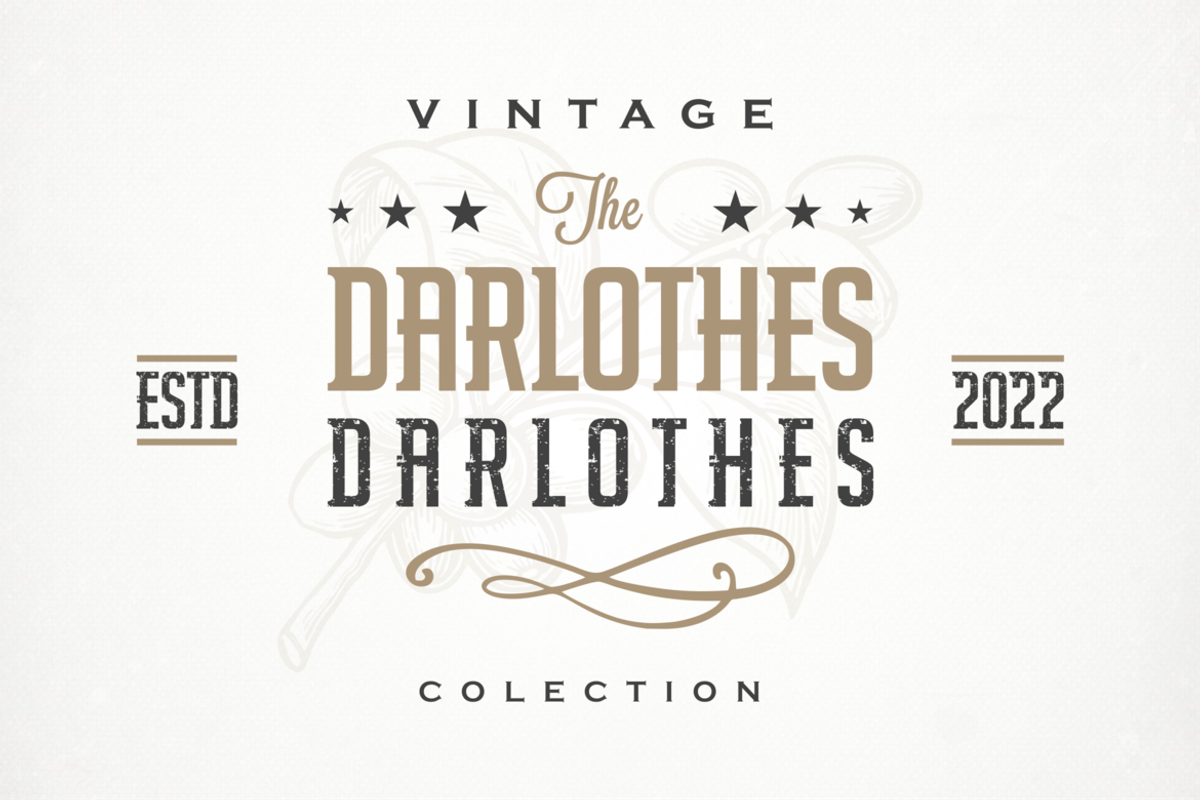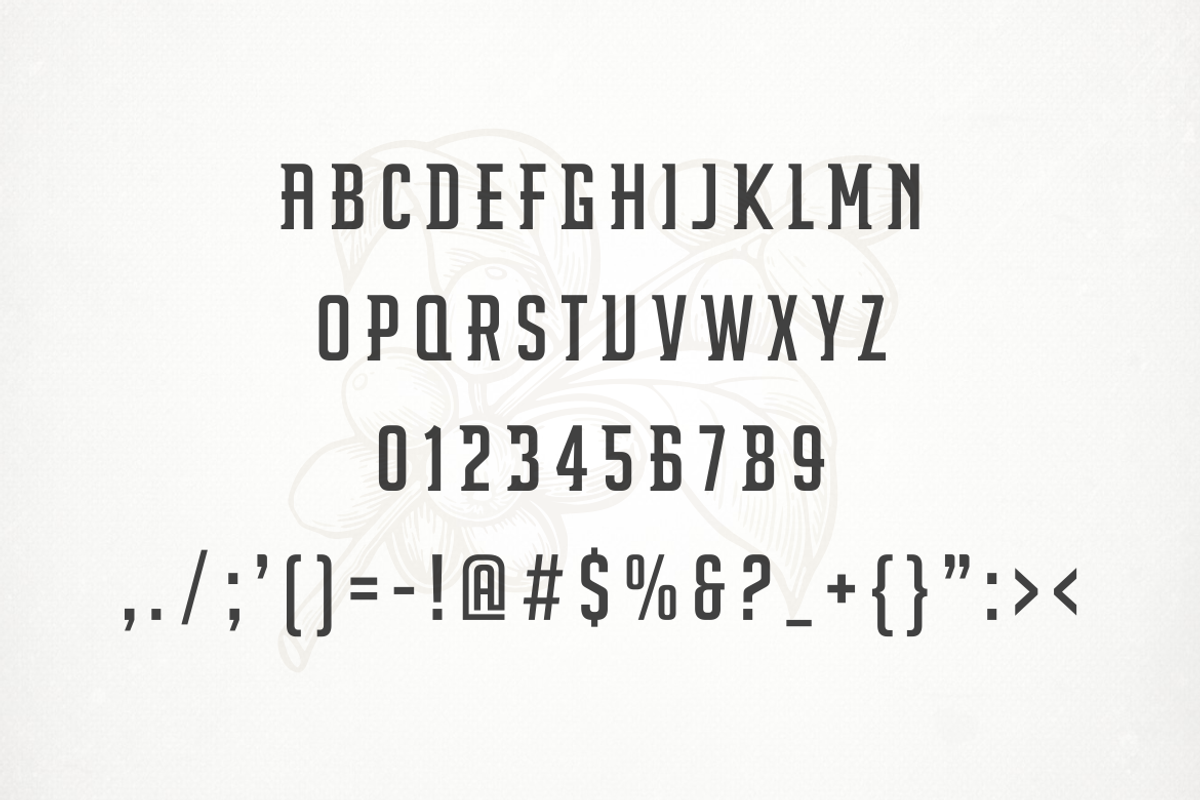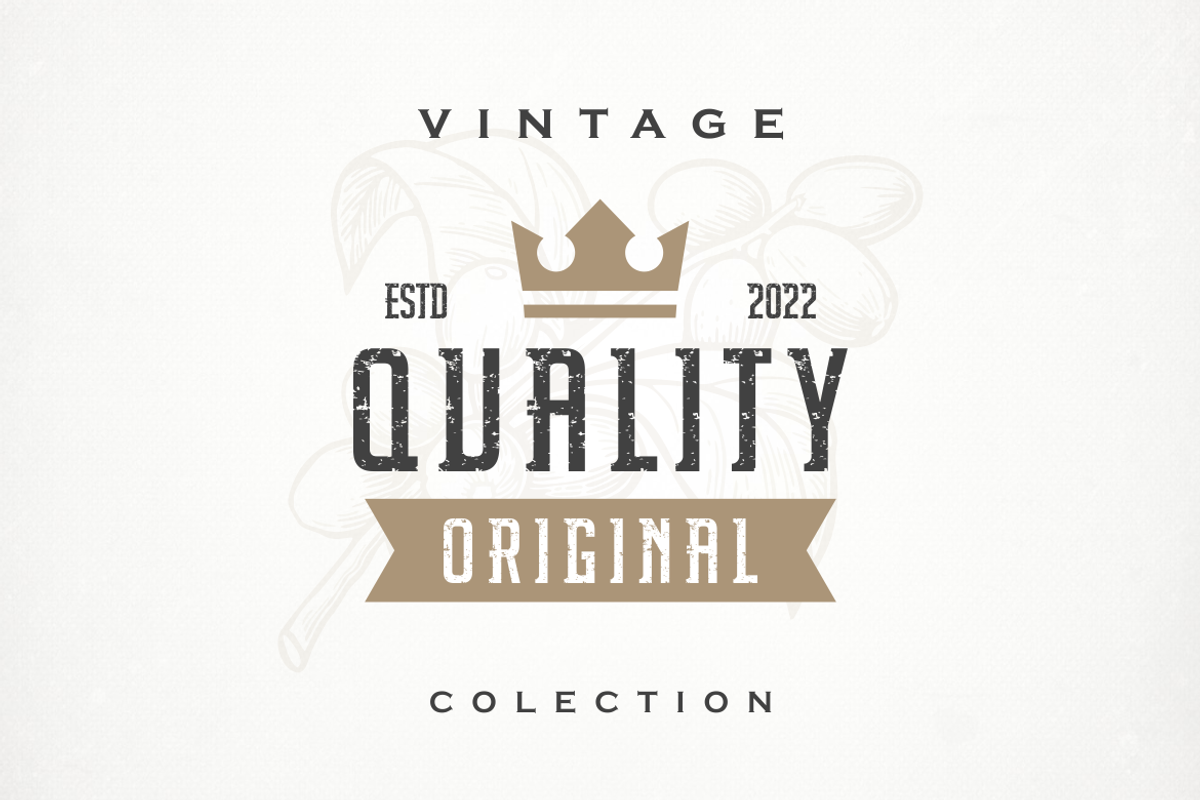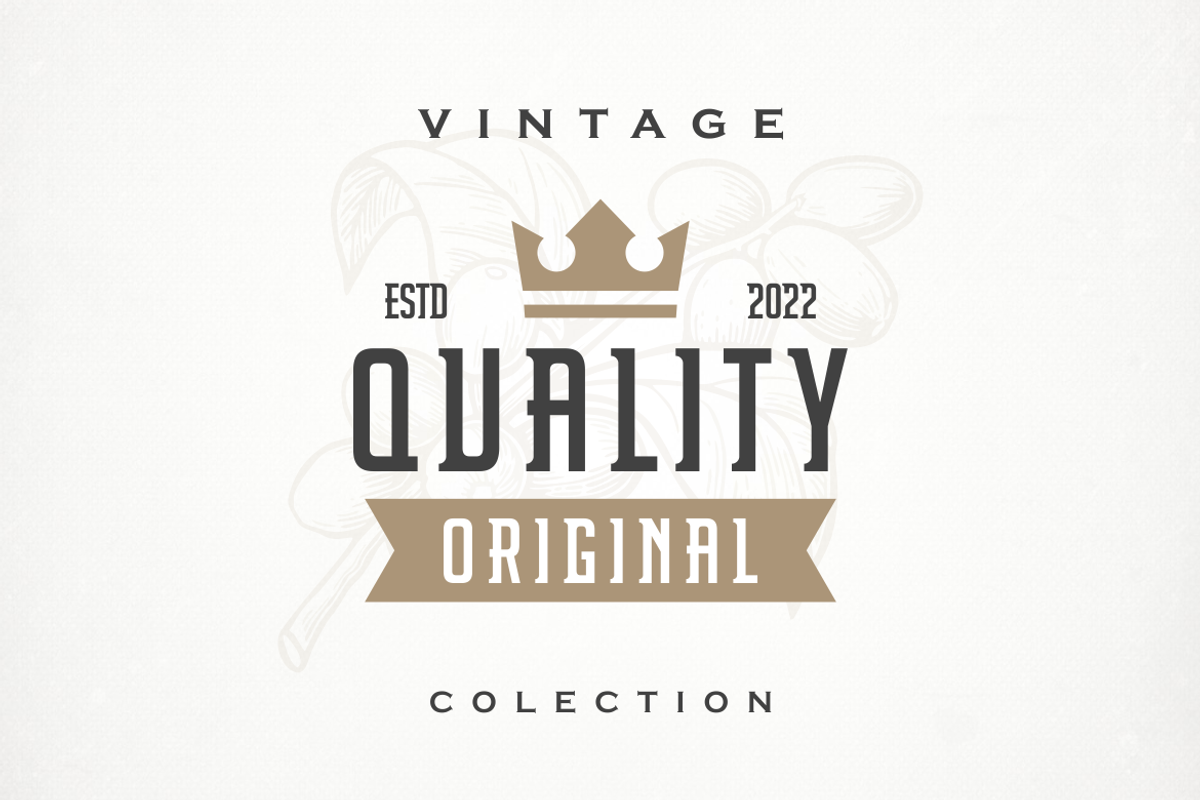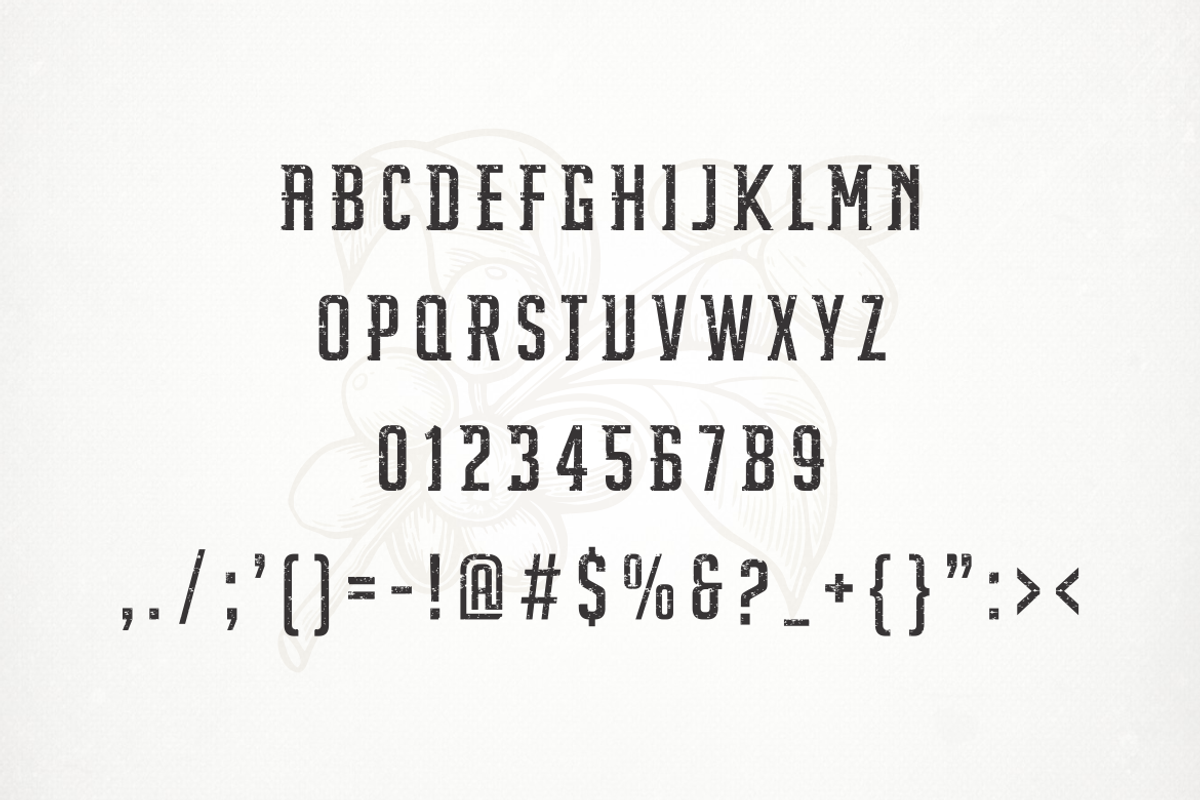
Darlothes
Introducing our new product Darlothes Font - Modern Font
Darlothes Font - Modern Font is a bold and authentic display font. The font is suitable for any branding project like logo, t-shirt printing, esport, and many more. outstanding in a wide range of contexts.